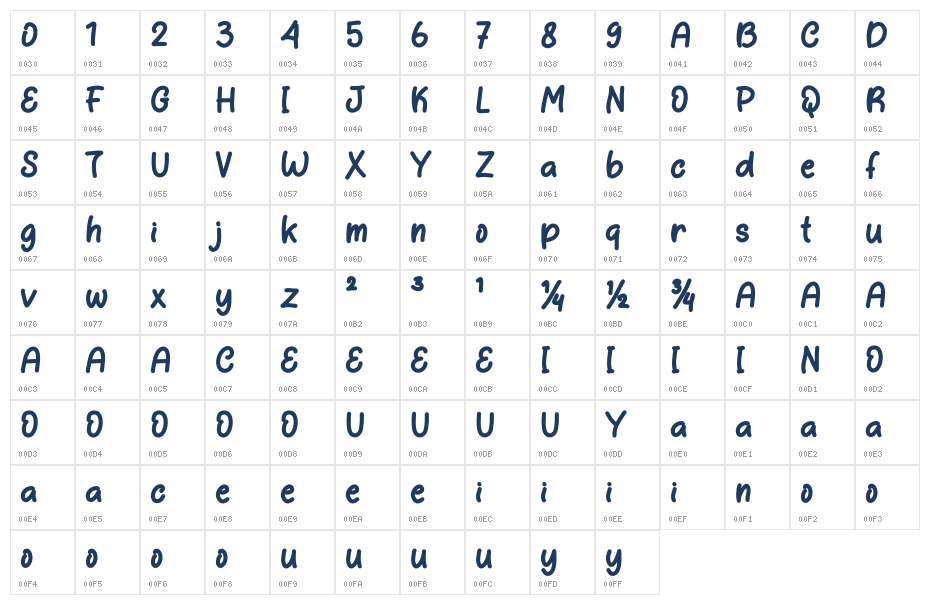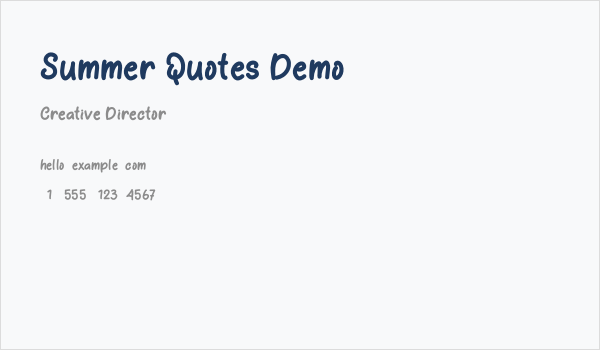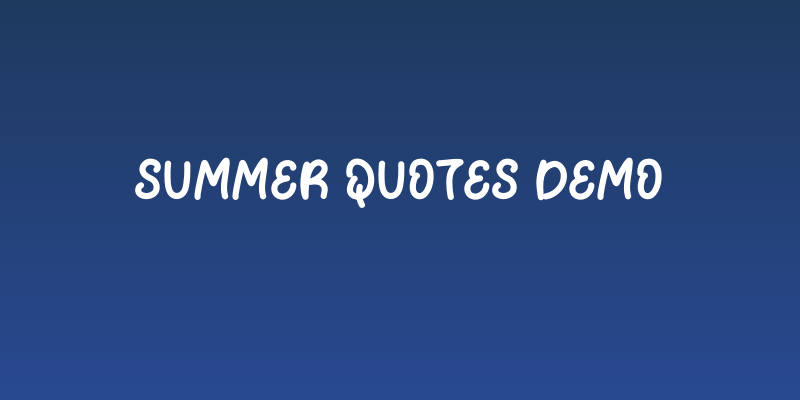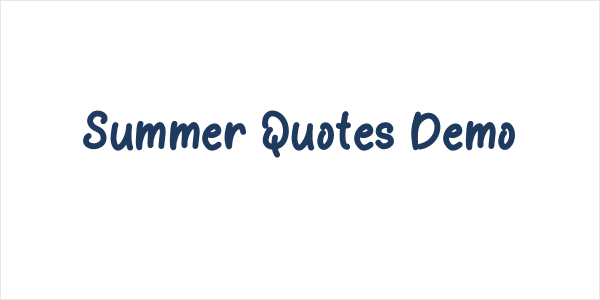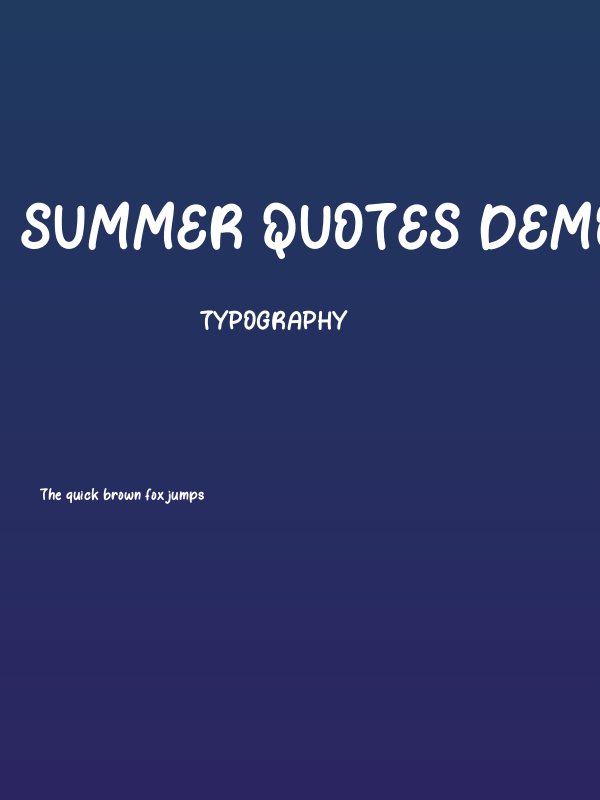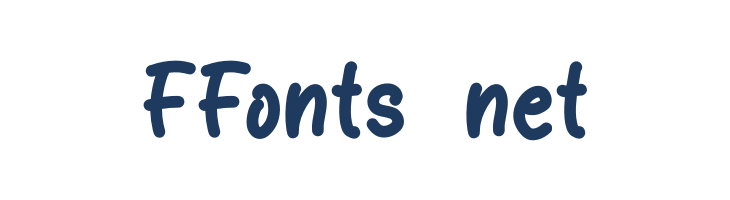
Summer Quotes Demo Font
Summer Quotes Demo Description
A playful, rounded, handwritten style font with a casual and friendly appearance.
| Overall Style | Casual, Friendly, Handwritten |
| Use Case | Headlines, Body text, Logos, Invitations |